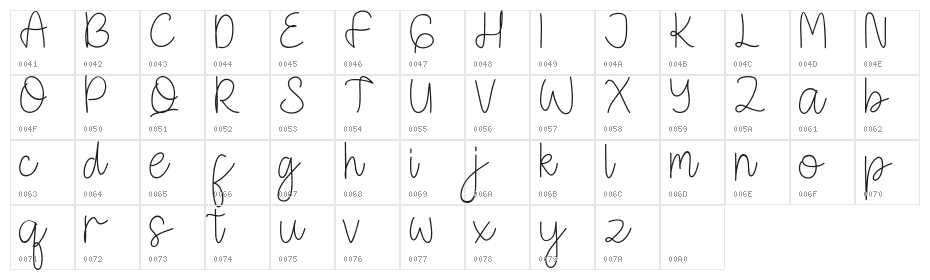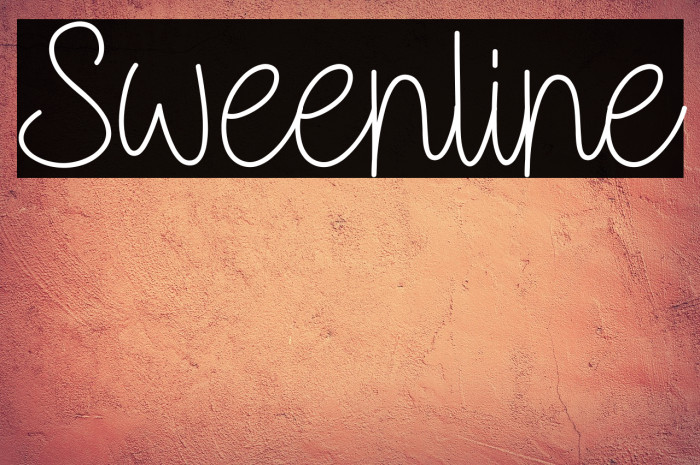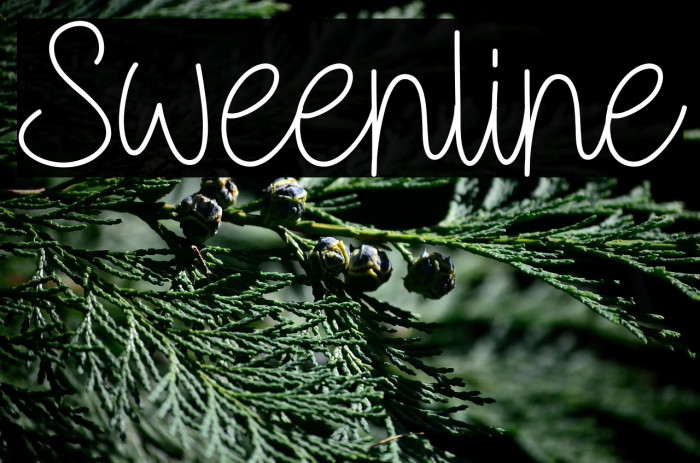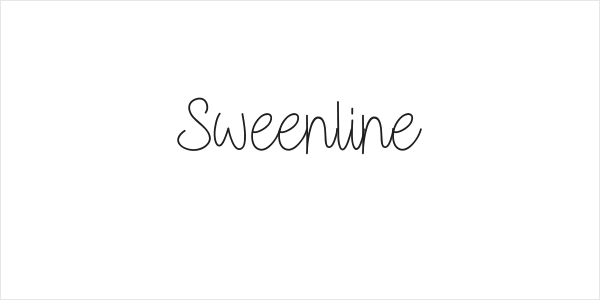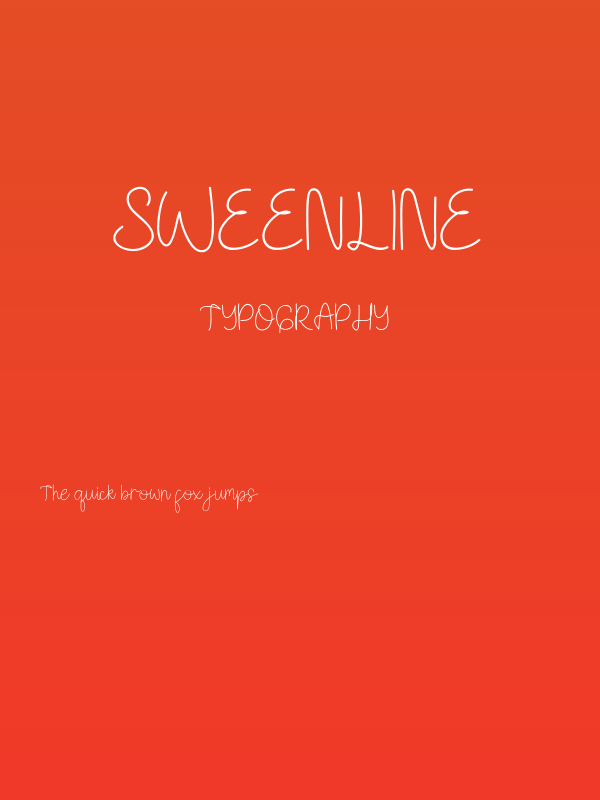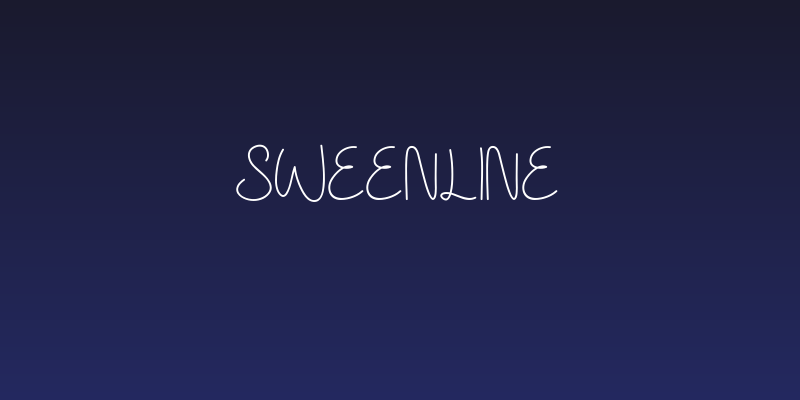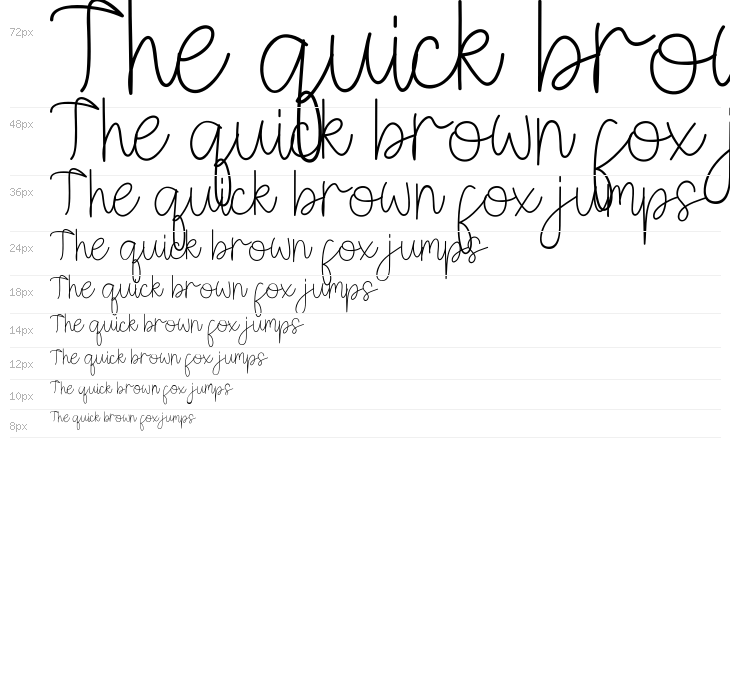
Sweenline Font
Sweenline Description
This font features a playful and whimsical handwritten style with a smooth, flowing appearance. The characters are connected in a cursive manner, giving it an elegant yet casual look. The uppercase and lowercase letters maintain a consistent height, while the strokes are thin and uniform, adding to its delicate charm. The font exhibits a sense of movement and fluidity, making it ideal for projects that require a personal touch. Its unique character shapes and loops create a distinctive and memorable visual impact.
| Use Case | Logos, Invitations, Greeting Cards |
| Proposed Projects | Ideal for greeting cards, invitations, personal branding, and creative projects that require a touch of elegance and personality. |